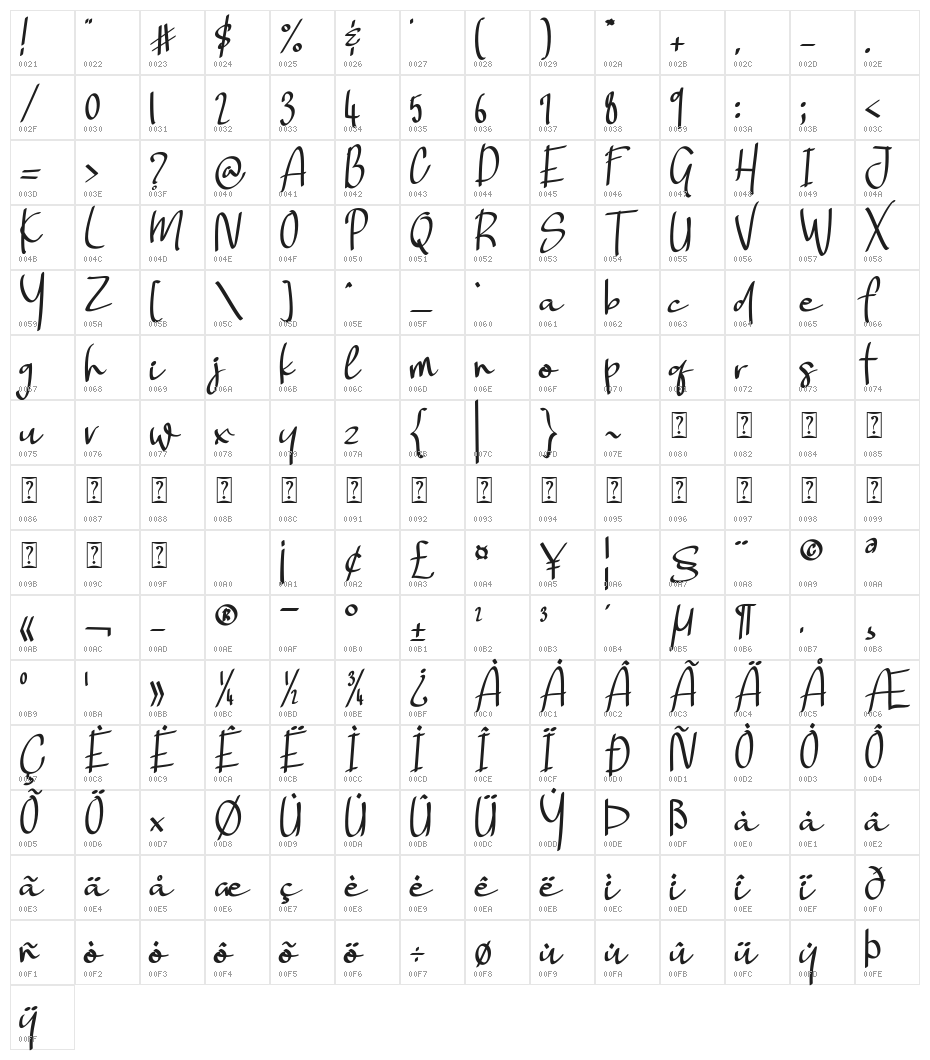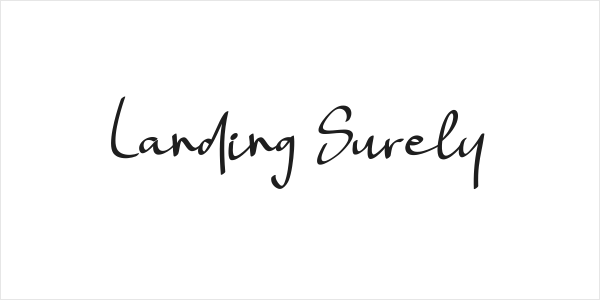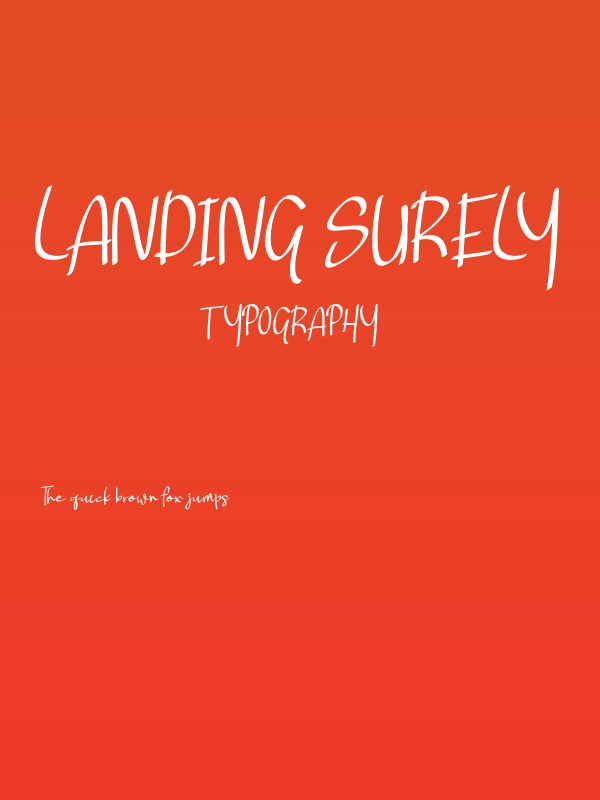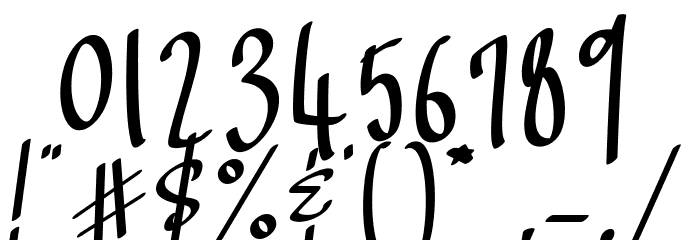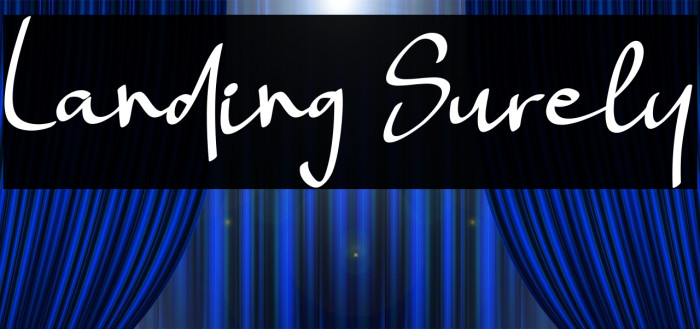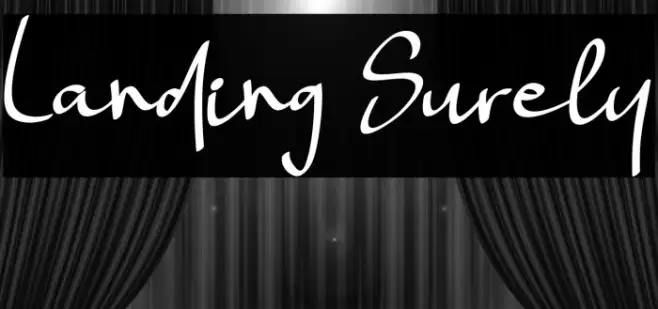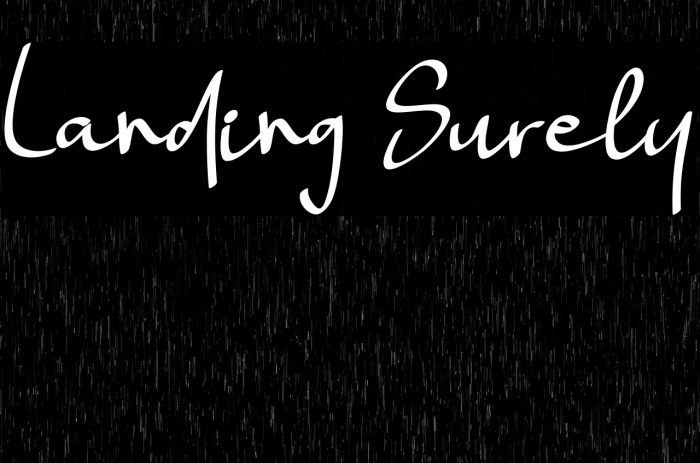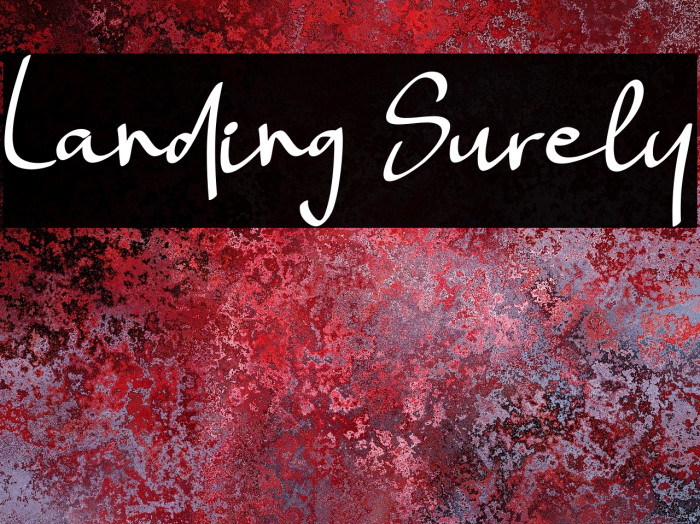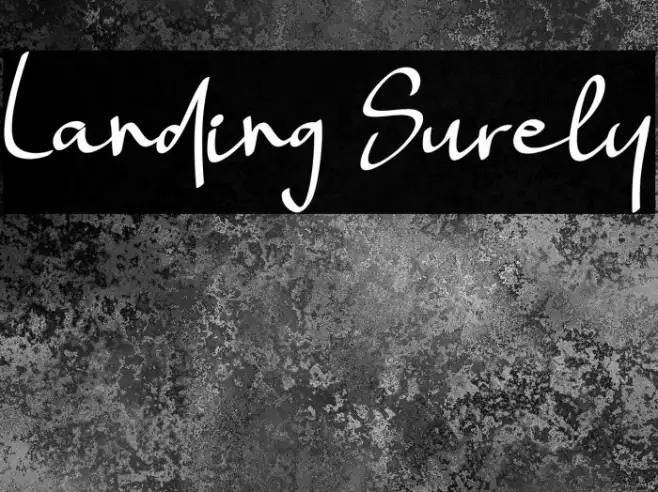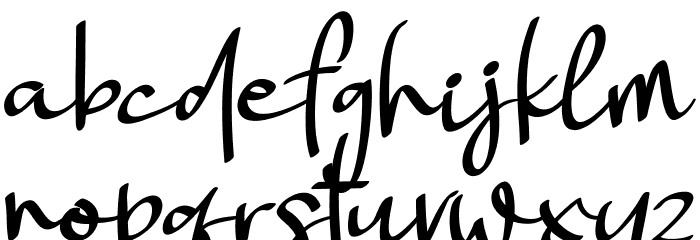
Landing Surely Font
Landing Surely Description
This font exudes a lively and dynamic handwritten style, characterized by its fluid and slightly irregular strokes that mimic natural handwriting. The uppercase letters are bold and confident, with a slight slant that adds to the casual, informal feel. The lowercase letters maintain a consistent flow, enhancing readability while preserving the handwritten charm. Numbers are clear and distinct, matching the overall style with their playful curves. Special characters are creatively designed, fitting seamlessly into the font's aesthetic. This font's energetic and personal touch makes it ideal for projects that require a human element, such as personal branding, invitations, or creative advertising.
| Overall Style | Casual, Energetic |
| Use Case | Logos, Invitations, Creative Advertising |
| Proposed Projects | Ideal for personal branding, invitations, creative advertising, and any project needing a human touch. |